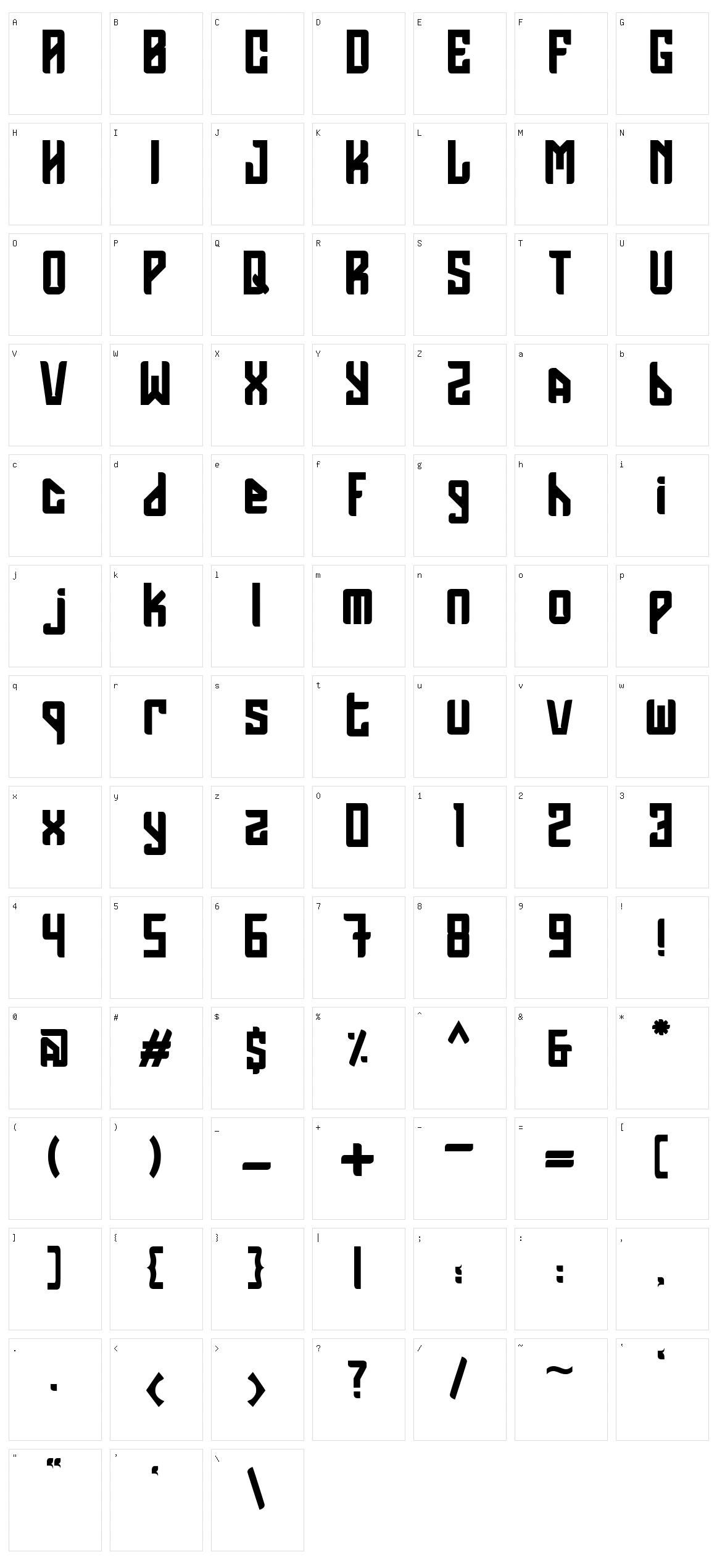
The free font Grames is carefully designed by nomlimofont, showcasing a thoughtful balance of creativity and usability and belongs to the Gothic font family. When you download the ZIP file, it contains only 20.63 KB of font files, making it lightweight and quick to download. Please review the license details below to understand permitted usage and distribution rights. If license information is not available, we recommend using this font for personal projects only or contacting the author directly for commercial usage permissions.